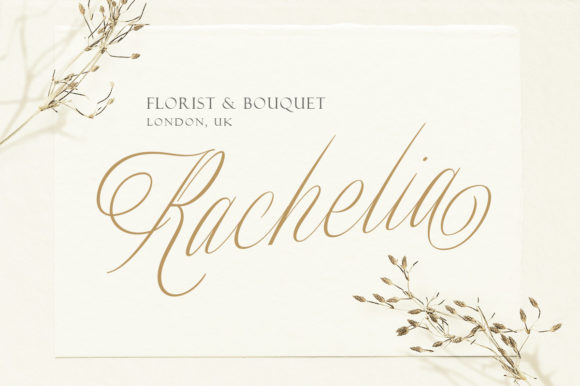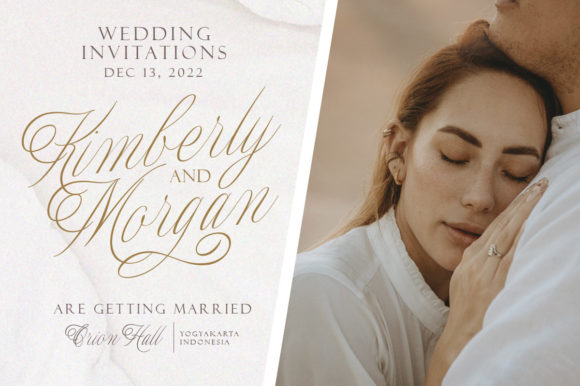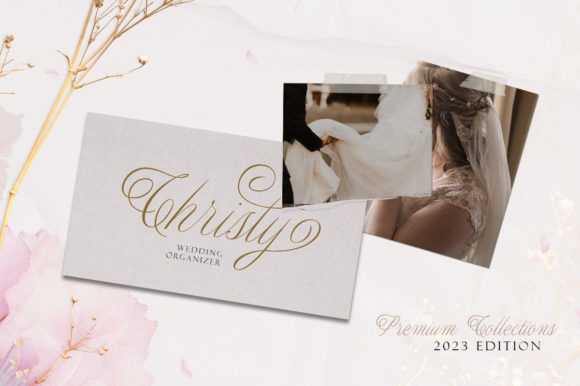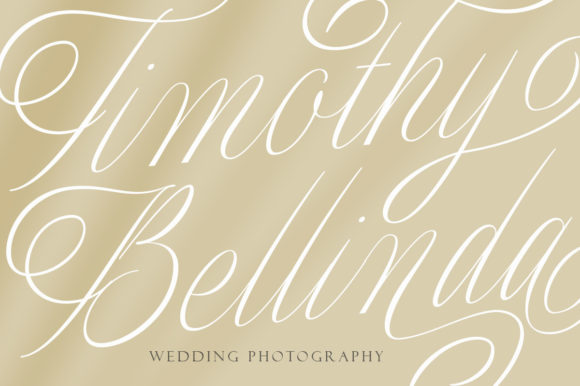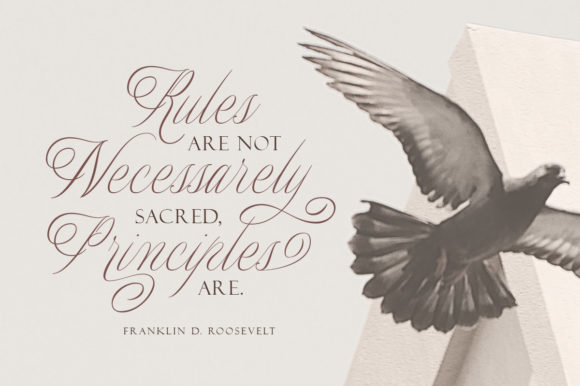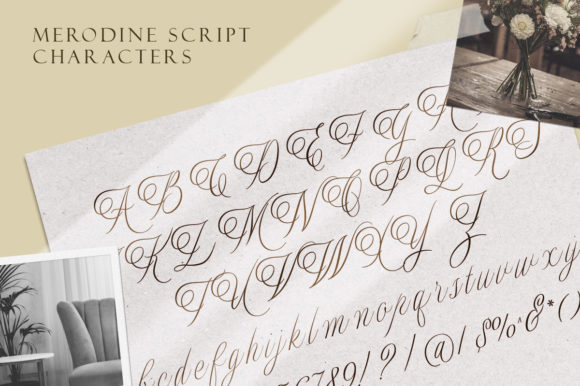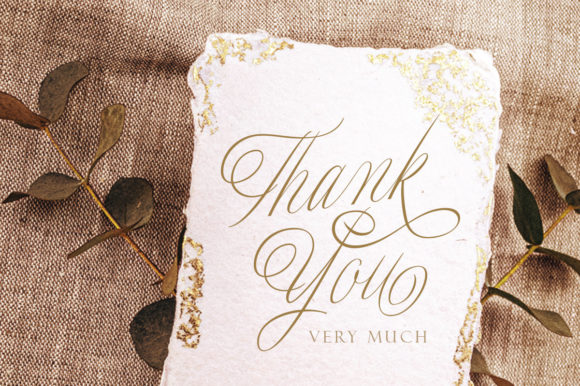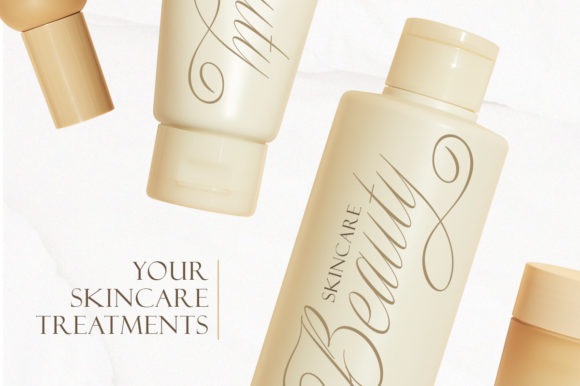
Merodine Font
About Merodine Font
Merodine is a stunning flowing handwritten font that exudes elegance and sophistication. With its distinct and timeless style, this font is perfect for a wide range of design projects. Whether you’re working on branding, invitations, logos, quotes, or any other creative endeavor, Merodine will elevate your designs to new heights.
The flowing nature of Merodine creates a sense of movement and grace, adding a touch of sophistication to your projects. Each letter is carefully crafted to maintain legibility while showcasing the unique characteristics of hand-drawn script fonts. The result is a font that is both beautiful and easy to read.
One of the notable features of Merodine is its PUA encoding, which allows you to access all of the glyphs and swashes with ease. This means you have full control over the various stylistic alternates and decorative elements that come with the font. It gives you the freedom to customize and personalize your designs, adding that extra flair and creativity.
Whether you’re designing wedding invitations, creating social media posts, or working on branding materials, Merodine provides a versatile and sophisticated option. Its distinct and timeless style ensures that your designs will stand out and make a lasting impression.
Fall in love with Merodine’s elegance, beauty, and versatility. Let it inspire you to create spectacular designs that capture attention and evoke emotion. With its flowing nature and PUA encoding, Merodine offers endless possibilities for your favorite projects.